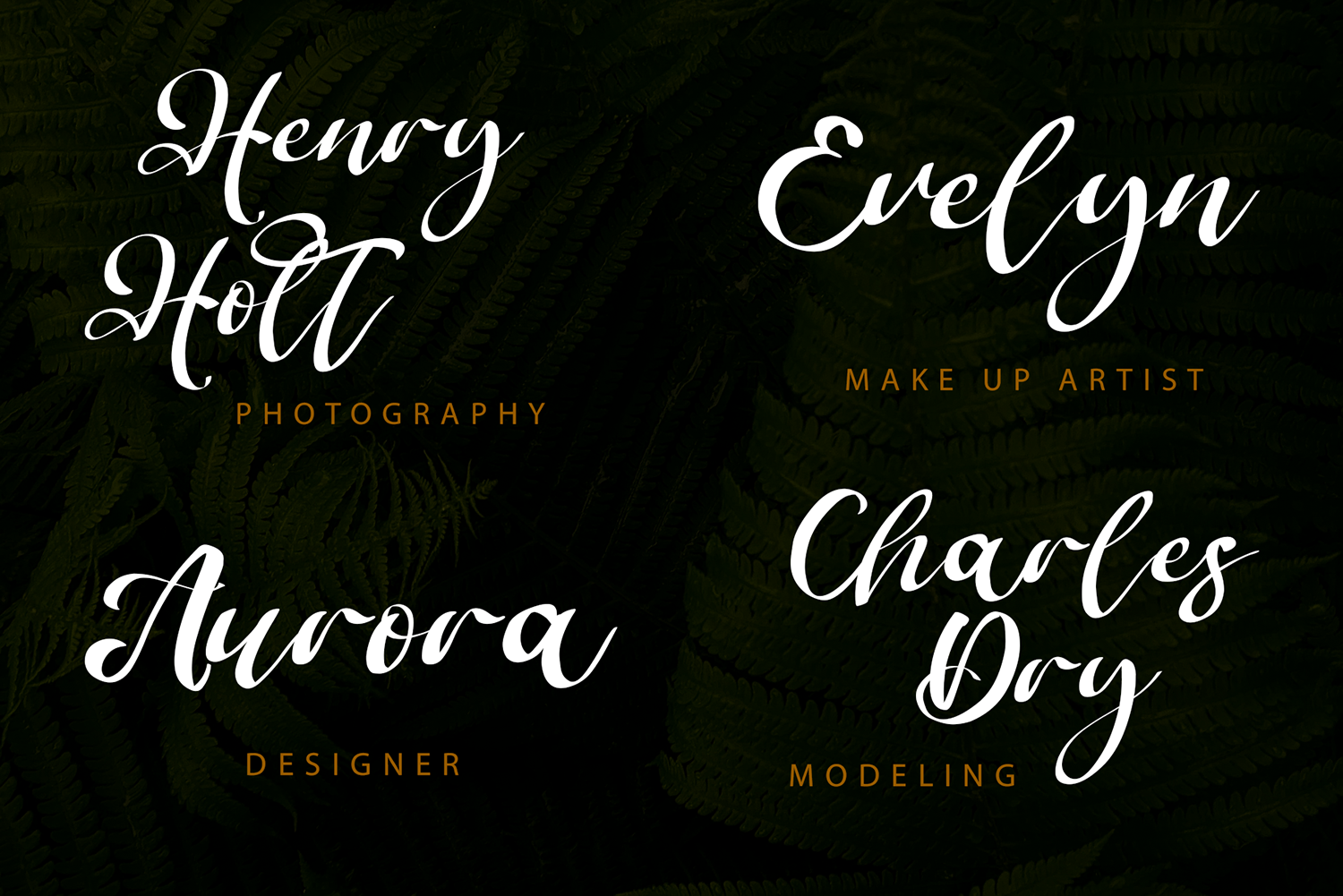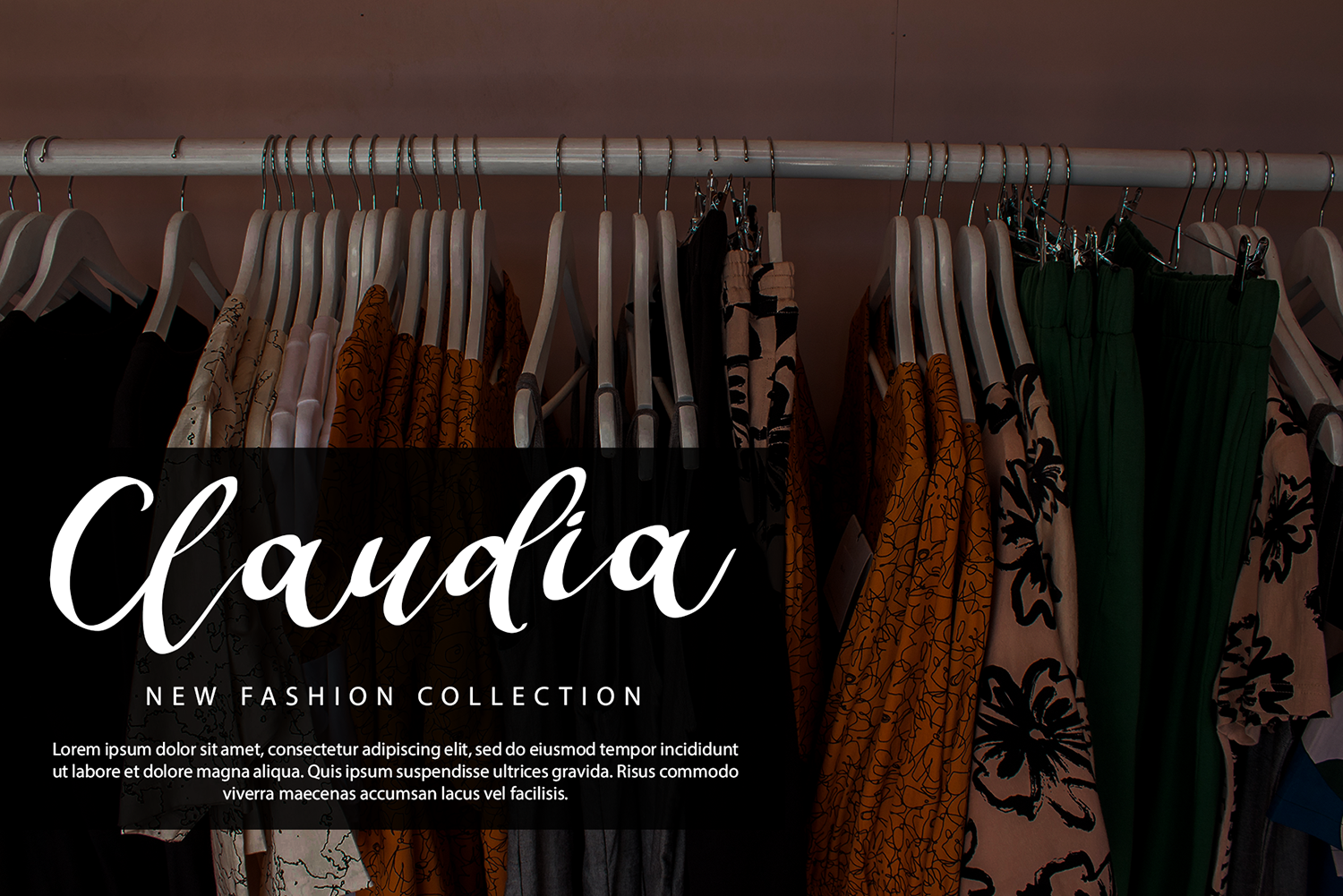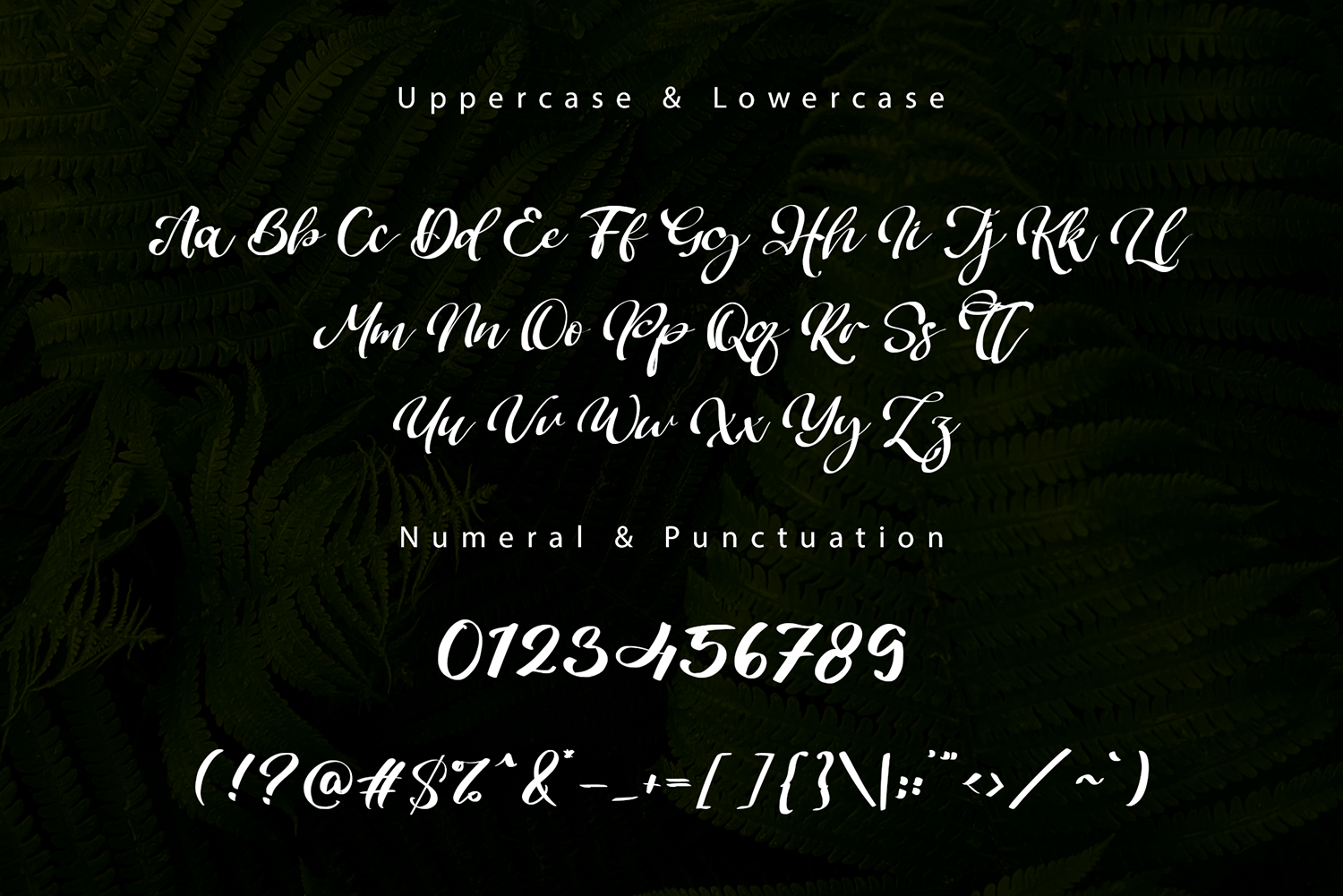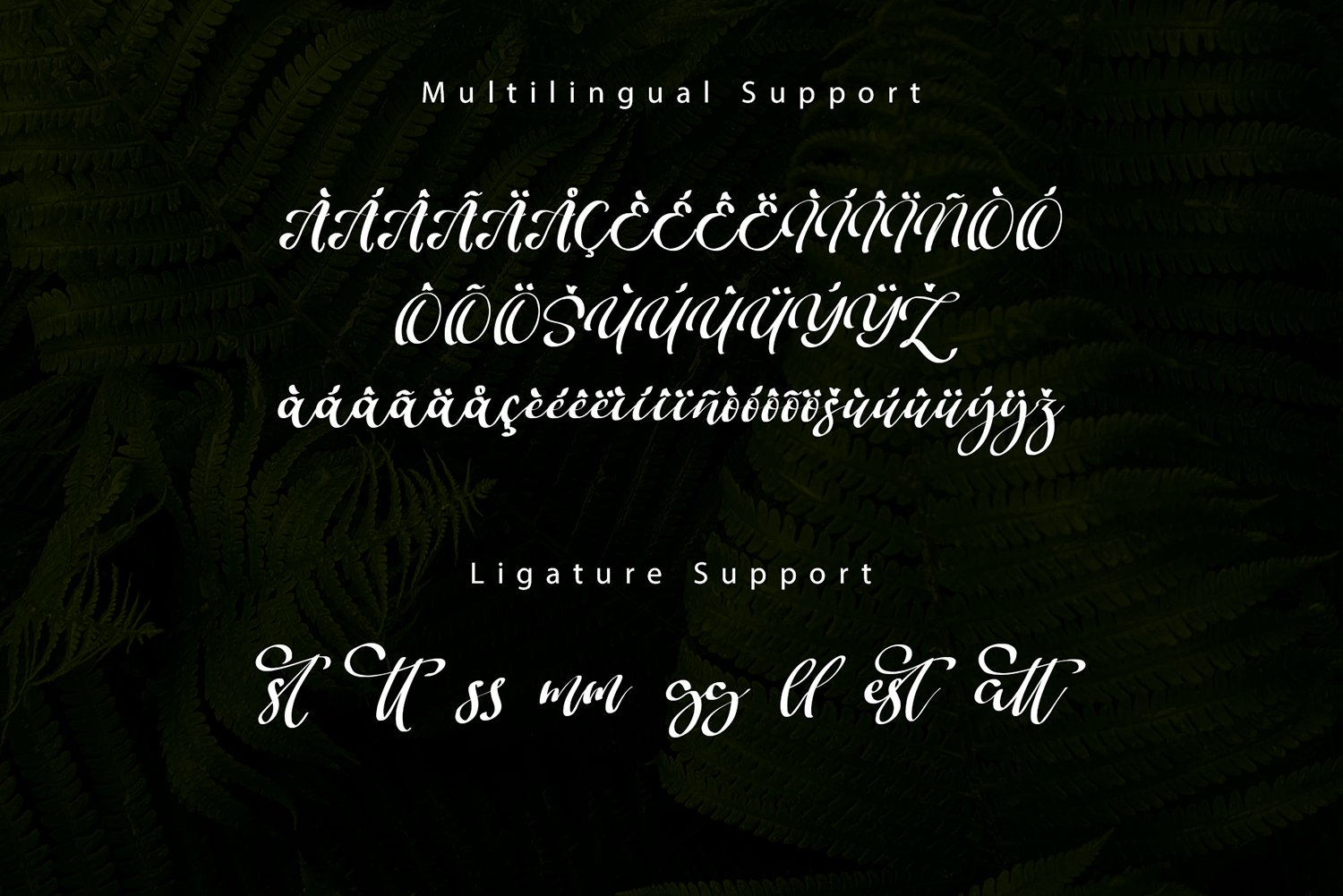
Bogbeast Free Font
Bogbeast Free Font is a contemporary and whimsical handwritten script font that caters to crafters and designers alike. Unlock the creative potential of this font and watch your designs come to life with its limitless possibilities. This free typeface was designed by a talented Kong Font. If you like it don’t forget to check out the full version.